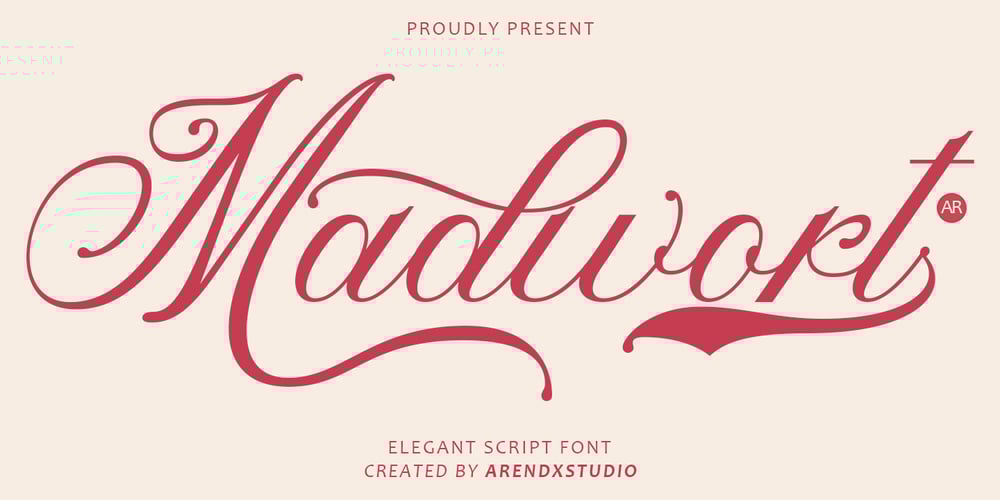
Madwort
Madwort font
Madwort Font Family was designed by Asep Rendi and published by Arendxstudio. Madwort contains 1 styles and family package options. The Madwort Elegant Script Font is a typeface characterized by its flowing, cursive letterforms and sophisticated style. Designed to evoke elegance and luxury, this font is often used in projects that require a refined and polished look, such as wedding invitations, branding, and high-end product packaging.### Key Features:1. Flowing Script: Madwort features graceful, cursive strokes that mimic natural handwriting, adding a personal and artistic touch to any design. 2. Elegant and Sophisticated: The font is designed with a balance of thick and thin lines, giving it a refined, luxurious feel. It is ideal for upscale branding and formal occasions.3. Versatile Usage: While primarily suited for invitations, logos, and product packaging, Madwort can also be used in fashion designs, greeting cards, and any project that requires a touch of elegance.4. Legibility: Despite its decorative script style, Madwort maintains good readability, making it functional as well as beautiful.5. Unique Letterforms: The font includes stylish flourishes and swashes, which make the letterforms stand out and add a sense of personality and creativity to the text.### Ideal Uses:- Wedding Invitations: Its flowing, romantic style makes it perfect for elegant wedding stationery.- Branding: For luxury brands, cosmetics, or fashion labels, Madwort adds a high-end, bespoke feel to logos and packaging.- Greeting Cards: The font can be used to give a personalized, artistic touch to special occasion cards.- Social Media Graphics: It works well in creating stylish and trendy quotes or promotional content.The Madwort Elegant Script Font offers a perfect blend of grace, beauty, and functionality, making it a popular choice for designers looking to add a touch of class to their projects.